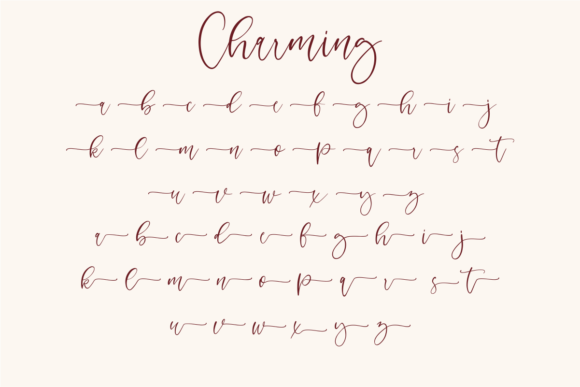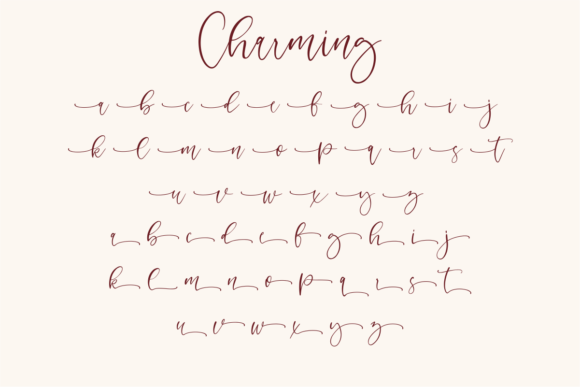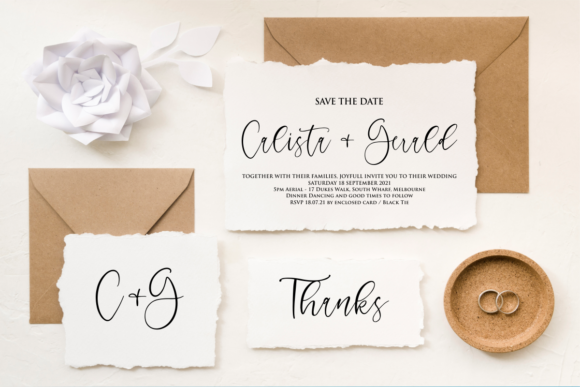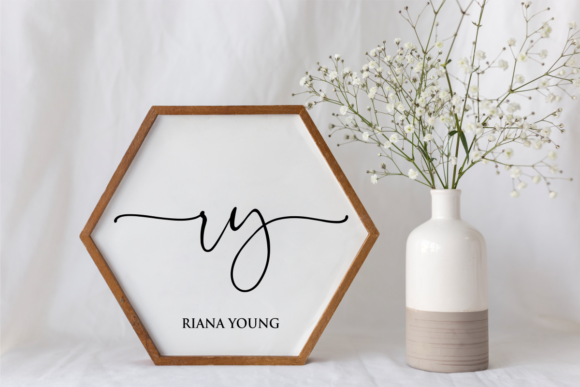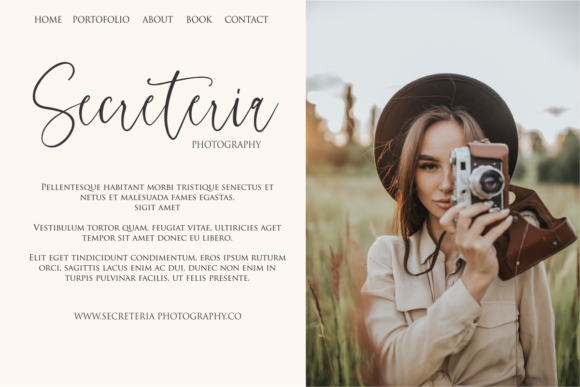
About Charming Font
Charming is a chic and modern script font. It features a varying baseline, smooth lines, gorgeous glyphs and stunning alternates.
Fall in love with its authentic feel and use it to create gorgeous wedding invitations, beautiful stationary art, eye-catching social media posts, and cute greeting cards.